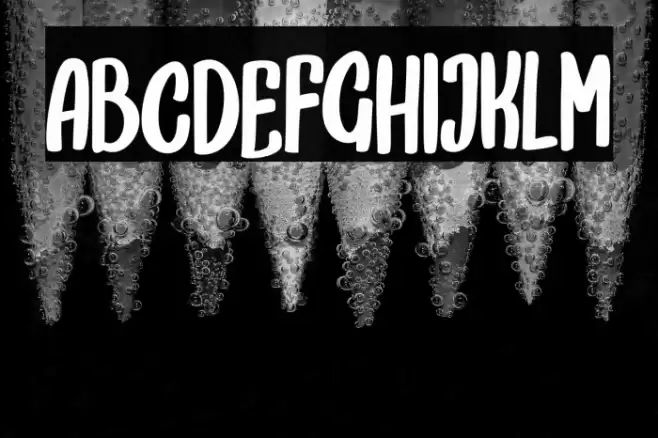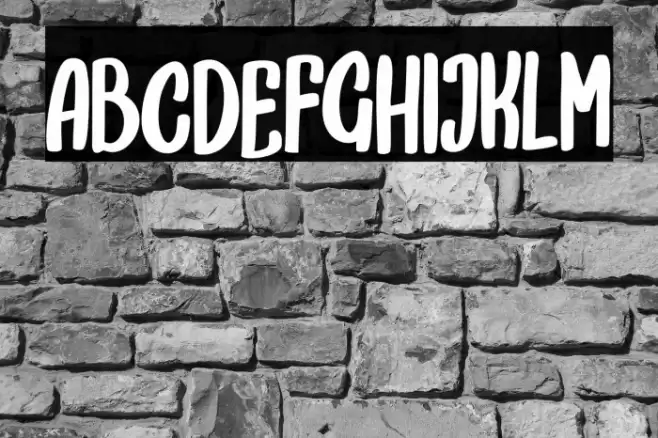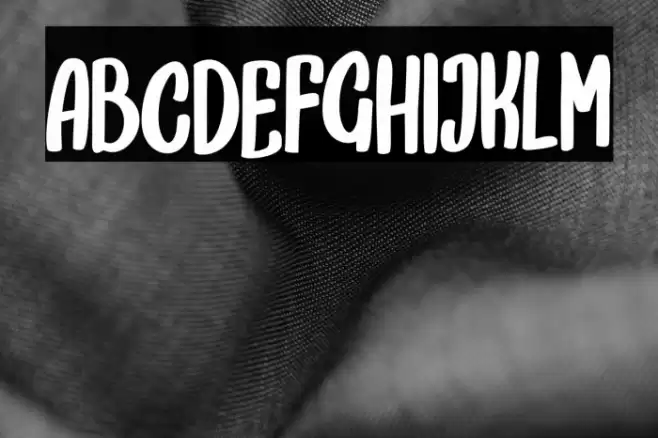
EabighFREE Font
EabighFREE Description
This font features a bold and playful style with rounded edges and a slightly condensed form. The uppercase letters are tall and prominent, while the lowercase letters maintain a consistent height, adding to the font's cohesive appearance. The strokes are thick and uniform, giving it a strong presence. The overall design is casual yet impactful, making it suitable for attention-grabbing headlines or creative projects. The characters are well-spaced, ensuring readability, and the font exudes a friendly and approachable vibe.
A bold, playful font with rounded edges and a slightly condensed form from Uncategorized fonts.
- Font: EabighFREE
- Proposed Projects: Ideal for children's books, playful branding, posters, and social media graphics.
- Overall Style: Playful, Casual